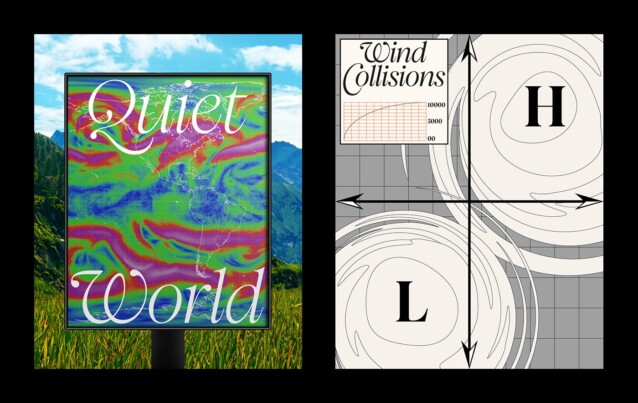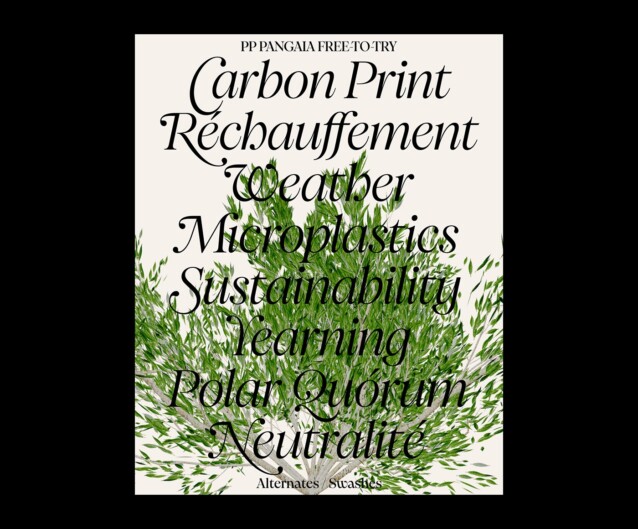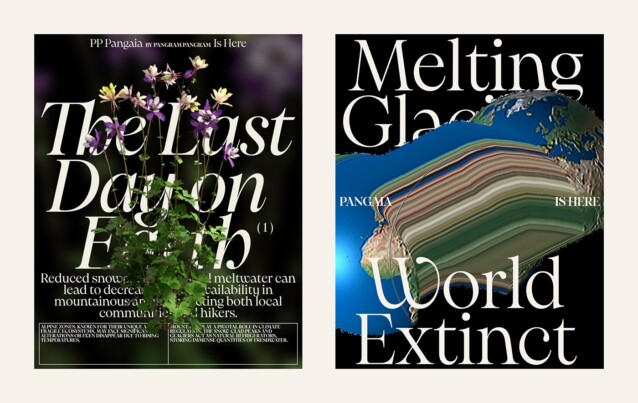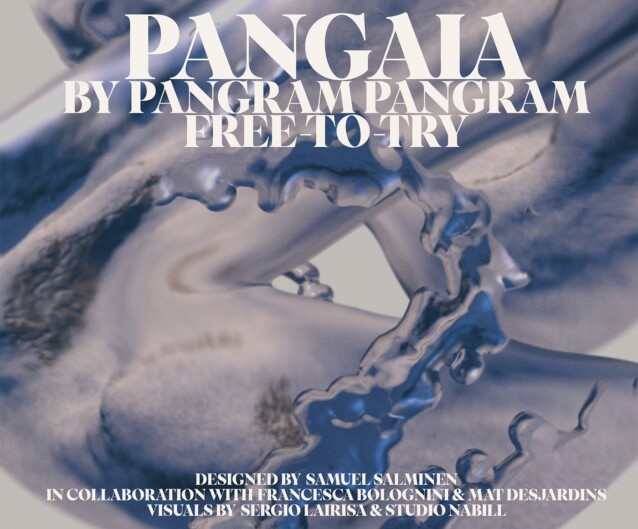
Pangaia Font Family
Pangaia Font
Pangaia Font is basic contemporary serif that have clean edges to reach modern feel. Drawing directly from the wonder of the Earth and its flora and fauna, Pangaia’s fluid curves inhabit the gentle contours of leaves, riverbanks, and mountain slopes – capturing the joyful, harmonious connection between type, texture and terra firma.